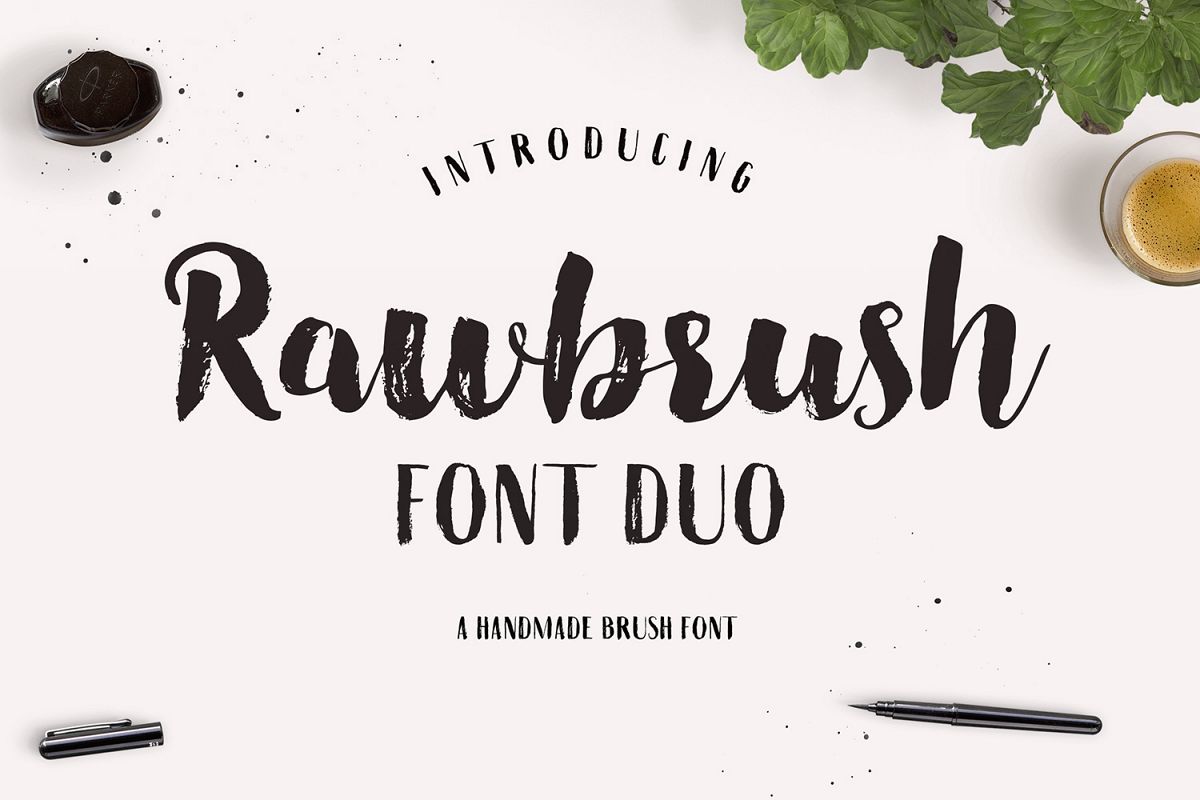
Rawbrush Font Duo | A Brush Font Duo
Meet Rawbrush Font Duo, a set of two handmade brush fonts that are made to work together. They are suitable for posters, invitations, product packaging, headers, hand lettered quotes, merchandise, etc. both on their own and as a couple.Includes: